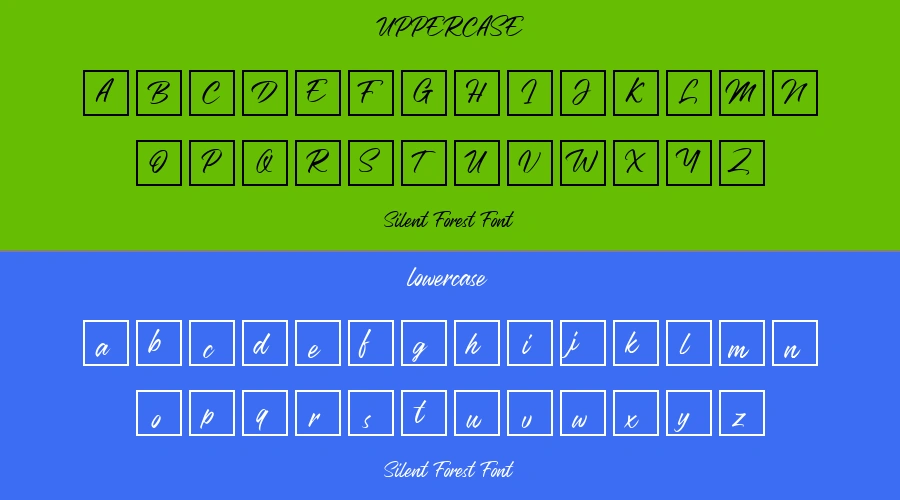
About Silent Forest Font
Designed with precision, Silent Forest Font merges expressive energy with enduring style in every character. This versatility makes it particularly effective for advertising campaigns, where accuracy and visual authority directly impact communication quality. Each letterform demonstrates meticulous craftsmanship.
Technical excellence shines through elements like monoline strokes and expert sets, enhancing typographic versatility. In brand logos settings, Silent Forest Font proves its worth through superior impact retention. The thoughtful execution of terminal angle and scientific authority ensures professional results.